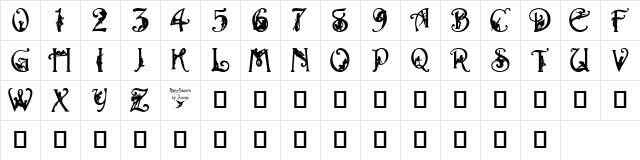
Complete Alpha-Silouette Medium glyph index. Displaying only characters natively supported by Alpha-Silouette Medium font.
Alpha-Silouette is a composed and adaptable typeface that performs quietly and consistently across a wide range of design contexts.